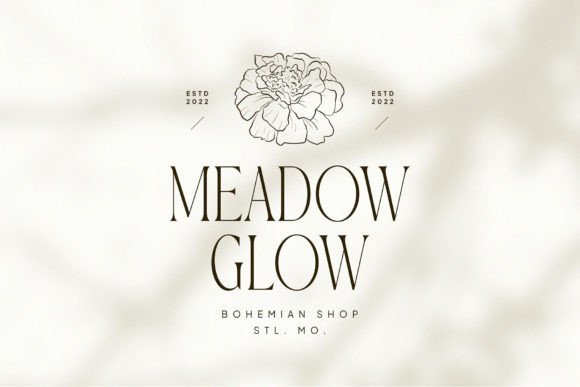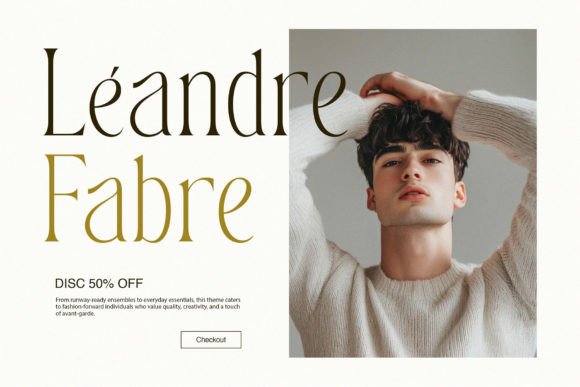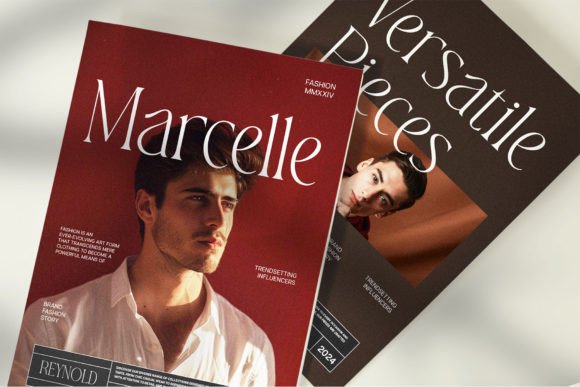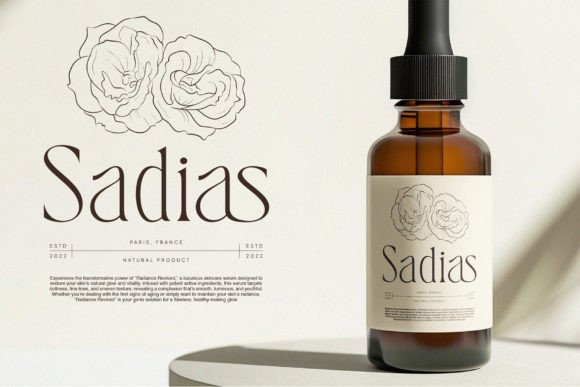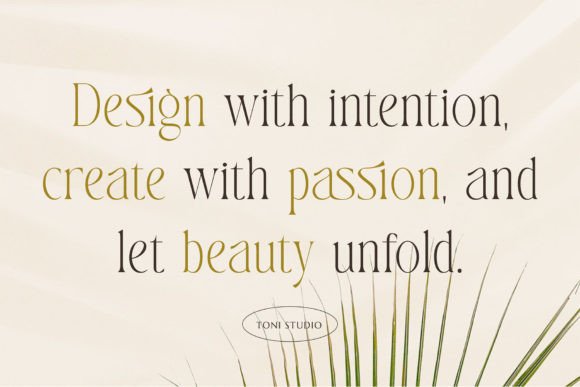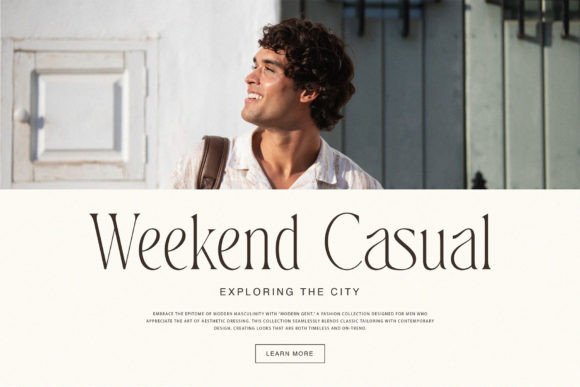
Introduction to Mangko Font
Introducing “Mangko” is an elegant serif display font.
It is a typeface with an added touch of modernity and elegance with an extra binder and alternative glyphs Great for branding, logos, invitations, master heads, and more.
Mangko Font offers exceptional quality and versatility, making it a valuable addition to your design toolkit. Whether you’re creating for personal projects or commercial use, Mangko Font delivers professional results.